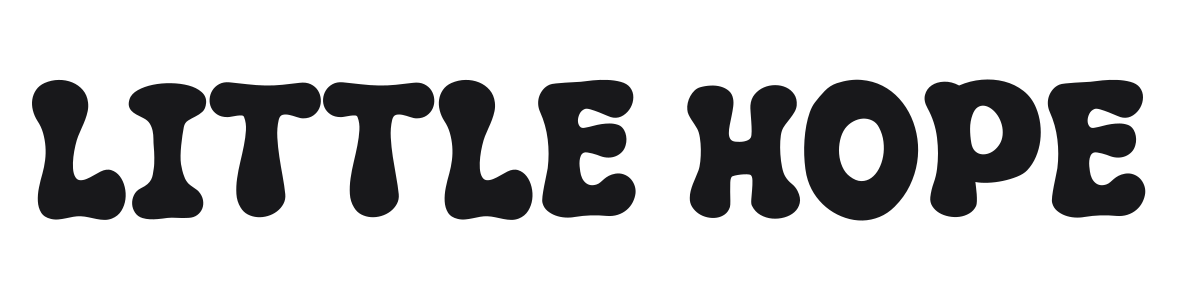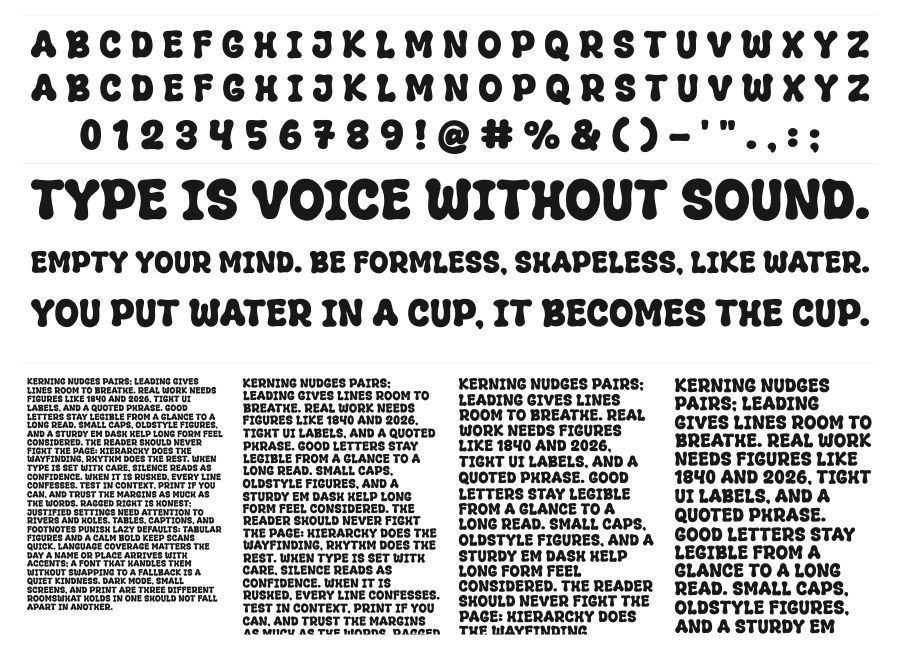
Little Hope
Little Hope is a bold, bubbly retro display font with a distinctly 1970s groovy personality. Heavily rounded strokes and inflated terminals give every character a friendly, almost balloon-like weight. It lands naturally in poster work, playful branding, and anywhere that needs confident retro energy.